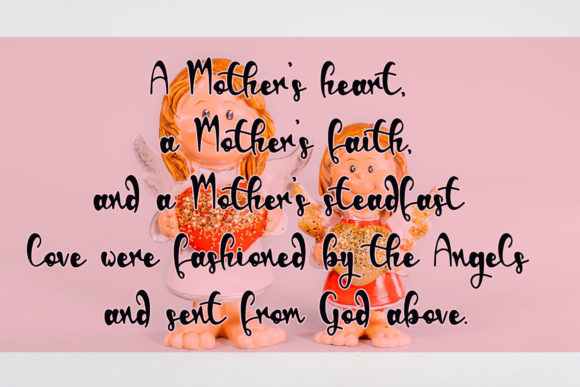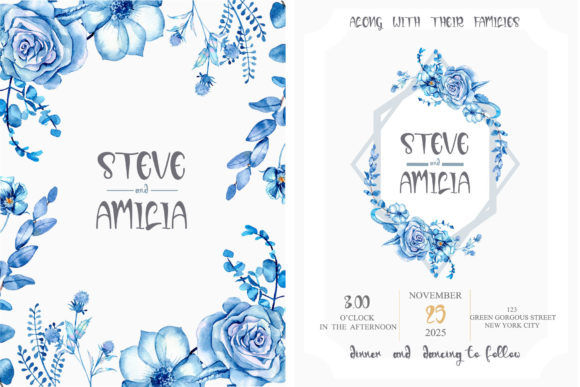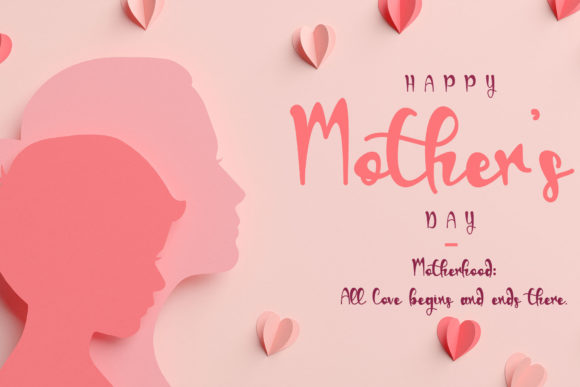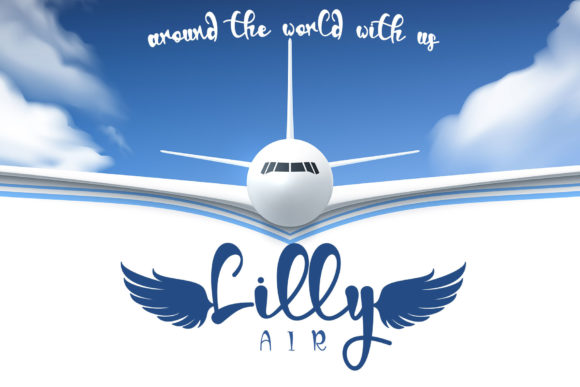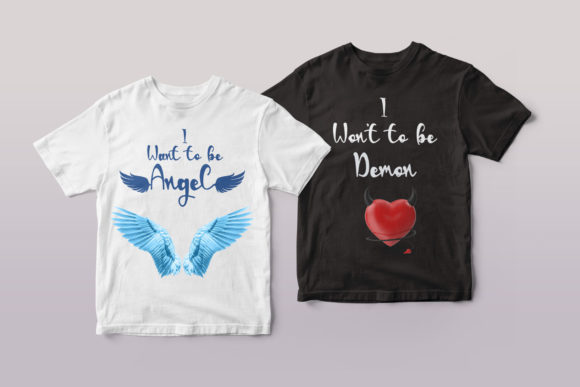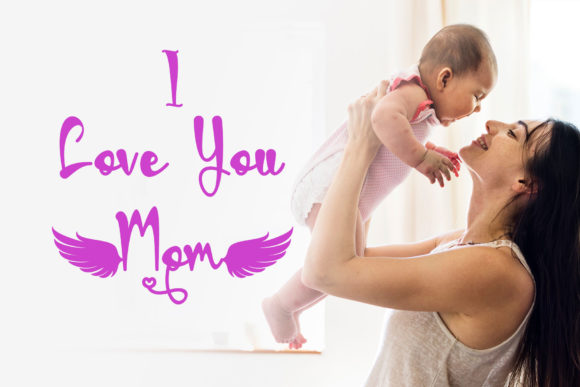
About Angels Mom Font
Angels Mom is a lovely handwritten font, inspired by mothers around the world. A mother is a real angel in a person’s life. Add this font to each of your Mother’s Day letter or design, and offer your mom the gift she deserves. Angels Mom is PUA encoded which means you can access all of the glyphs and swashes with ease!